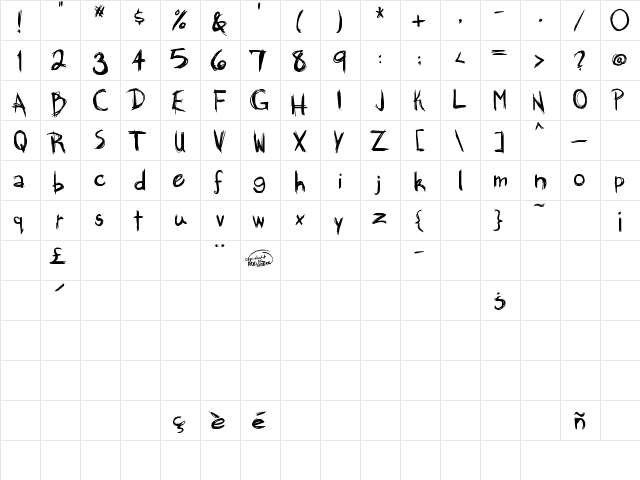
Waste Of Time Regular
Design Context for Waste Of Time Typeface
Waste Of Time is a composed and adaptable typeface that performs quietly and consistently across a wide range of design contexts.